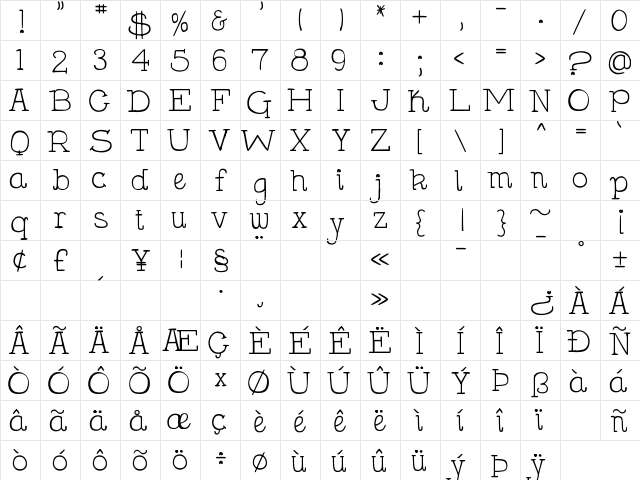
DJB Holly Serif Regular
Design Context for DJB Holly Serif Typeface
DJB Holly Serif carries the refined structure of traditional serif typography, with bracketed terminals and considered proportions that communicate credibility and craft.
Pro Tip: Use DJB Holly Serif for editorial body copy and considered headline work. Pair with a neutral sans for UI elements or captions to create a classic hierarchy.